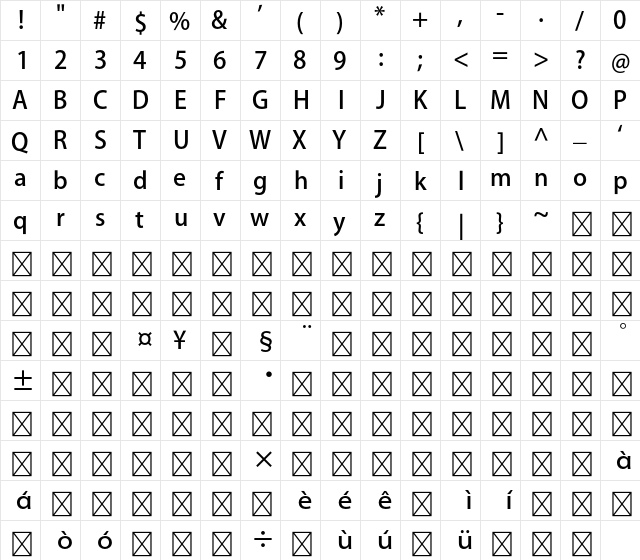
Adobe Heiti Std R
Design Context for Adobe Heiti Std Typeface
Adobe Heiti Std is a composed and adaptable typeface that performs quietly and consistently across a wide range of design contexts.
Pro Tip: Pair Adobe Heiti Std with a font of contrasting weight or personality to build a more expressive typographic hierarchy.